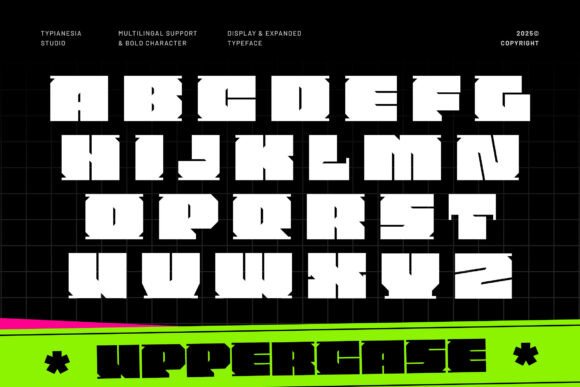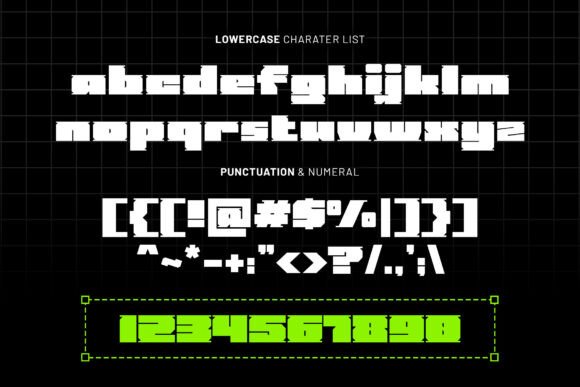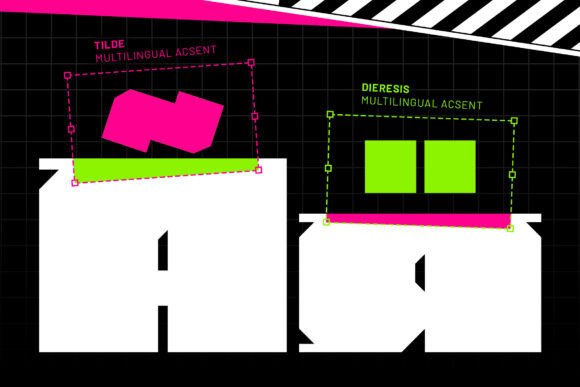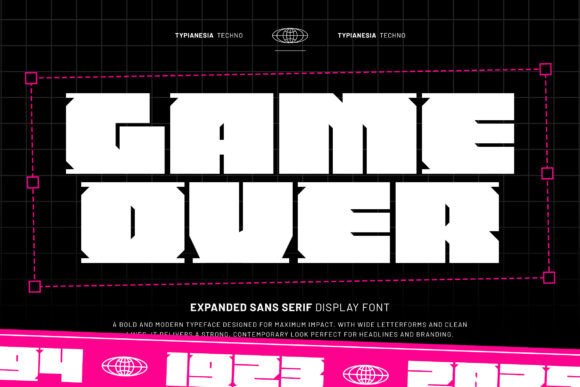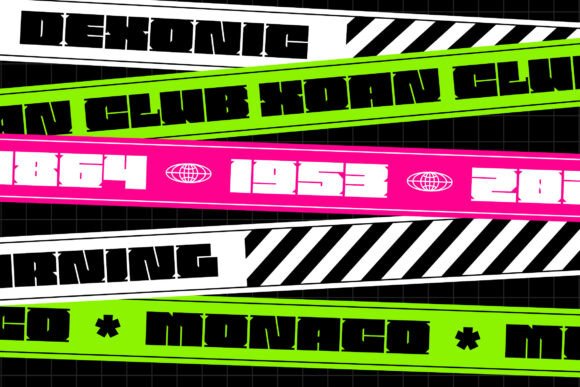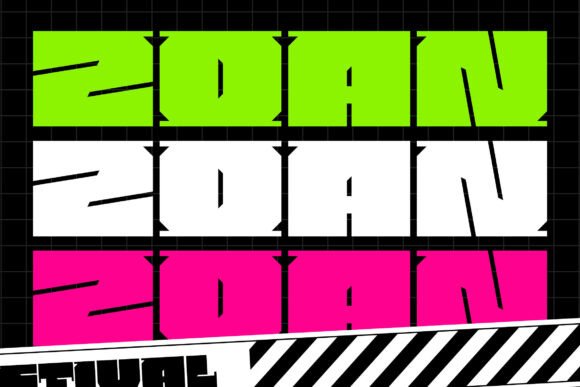
Gualinx Font: Elevate Your Brand with a Modern, Bold, and Expanded Sans Serif Typeface
In the realm of typography, a font can make or break the visual identity of a brand. For designers and crafters seeking to make a statement, Gualinx Font emerges as a game-changer. This modern, bold, and expanded sans serif font is engineered to capture attention and convey a sense of futuristic energy. With its unique blend of geometric structure and dynamic ink trap details, Gualinx is poised to revolutionize the way you present your brand to the world.
Unleashing the Power of Geometric Design
Gualinx boasts a strong, geometric sans structure that exudes confidence and modernity. Its bold character is designed to command attention, making it perfect for high-impact headlines, distinctive logos, and high-energy events like festival promotions, urban and sports branding, game titles, poster campaigns, and cutting-edge advertising. The font’s geometric design ensures a clean and futuristic look, ideal for brands aiming to project an innovative image.
The Unique Touch of Ink-Trap Details
What sets Gualinx apart from other bold sans serif fonts is its dynamic ink trap details. These unique design elements add a touch of sophistication and elegance to the font, making it suitable for a wide range of applications, from digital platforms to print materials. The ink trap details also help to create a sense of movement and energy, drawing the viewer’s eye through the text.
Perfect for High-Impact Applications
Gualinx is specifically designed for high-impact applications where visibility and legibility are paramount. Its expanded width ensures that your text grabs attention and maintains it, guaranteeing that your message is seen and remembered. Whether you’re designing a logo, creating a poster campaign, or developing a brand identity for a sports or gaming event, Gualinx provides the perfect combination of style and substance.
Key Features of Gualinx Font
- Modern and Bold Design: Gualinx features a bold, modern design that’s perfect for making a statement.
- Expanded Sans Serif: The font’s expanded width provides maximum visibility, ensuring your text stands out.
- Geometric Structure: Gualinx boasts a strong, geometric sans structure that conveys confidence and modernity.
- Ink-Trap Details: The font’s dynamic ink trap details add a touch of sophistication and elegance.
- High-Impact Applications: Gualinx is perfect for high-impact headlines, logos, festival promotions, sports branding, game titles, and poster campaigns.
Why Choose Gualinx Font?
For designers and crafters seeking a font that embodies innovation and style, Gualinx is an unbeatable choice. Its unique blend of geometric design and ink-trap details ensures a distinctive look that sets your brand apart. With Gualinx, you can:
- Create a bold and memorable brand identity.
- Elevate your design with a modern and expanded sans serif font.
- Convey a sense of technology and innovation.
- Ensure maximum visibility for your text.
In conclusion, Gualinx Font is a stunning, modern, bold, and expanded sans serif typeface that’s engineered to command attention. With its strong geometric structure, dynamic ink trap details, and expanded width, this font is perfect for high-impact applications where visibility and legibility are crucial. Whether you’re a designer, crafter, or brand owner, Gualinx provides a unique opportunity to elevate your brand and make a lasting impression.
So why settle for an ordinary font when you can make a statement with Gualinx? Discover the power of this modern, bold, and expanded sans serif font and take your brand to the next level.